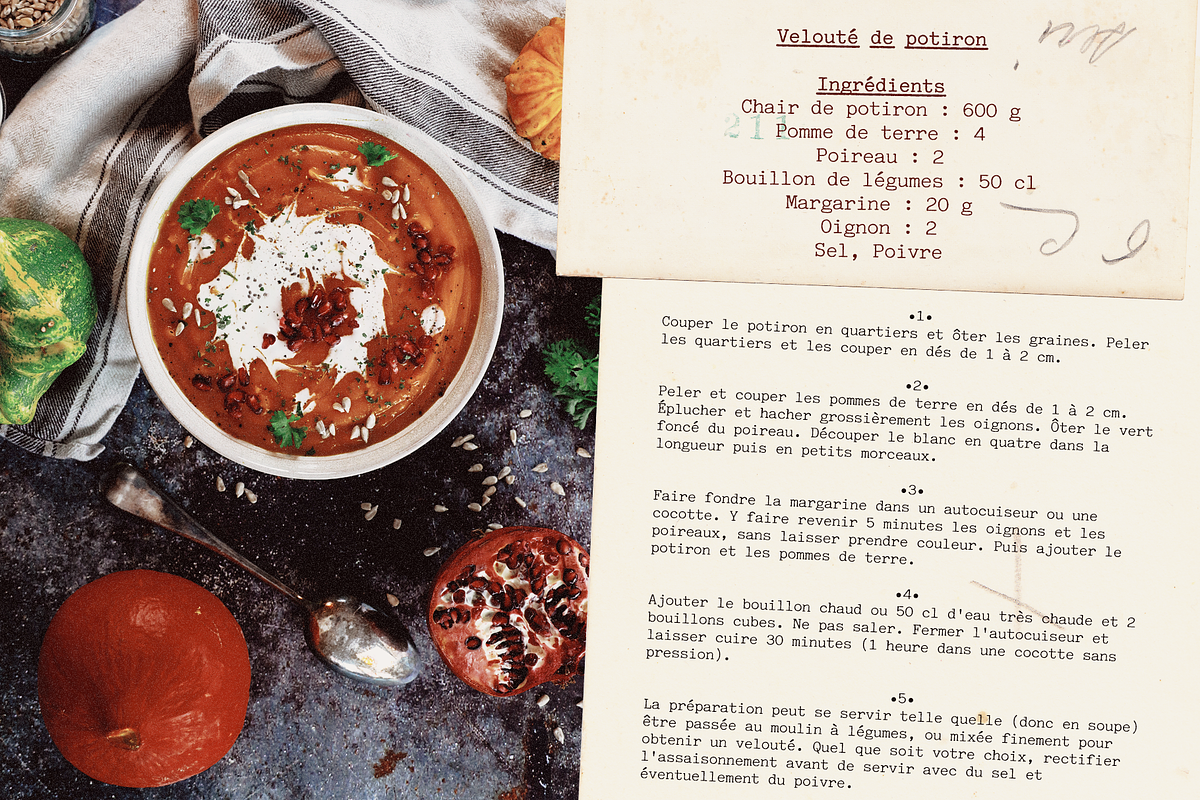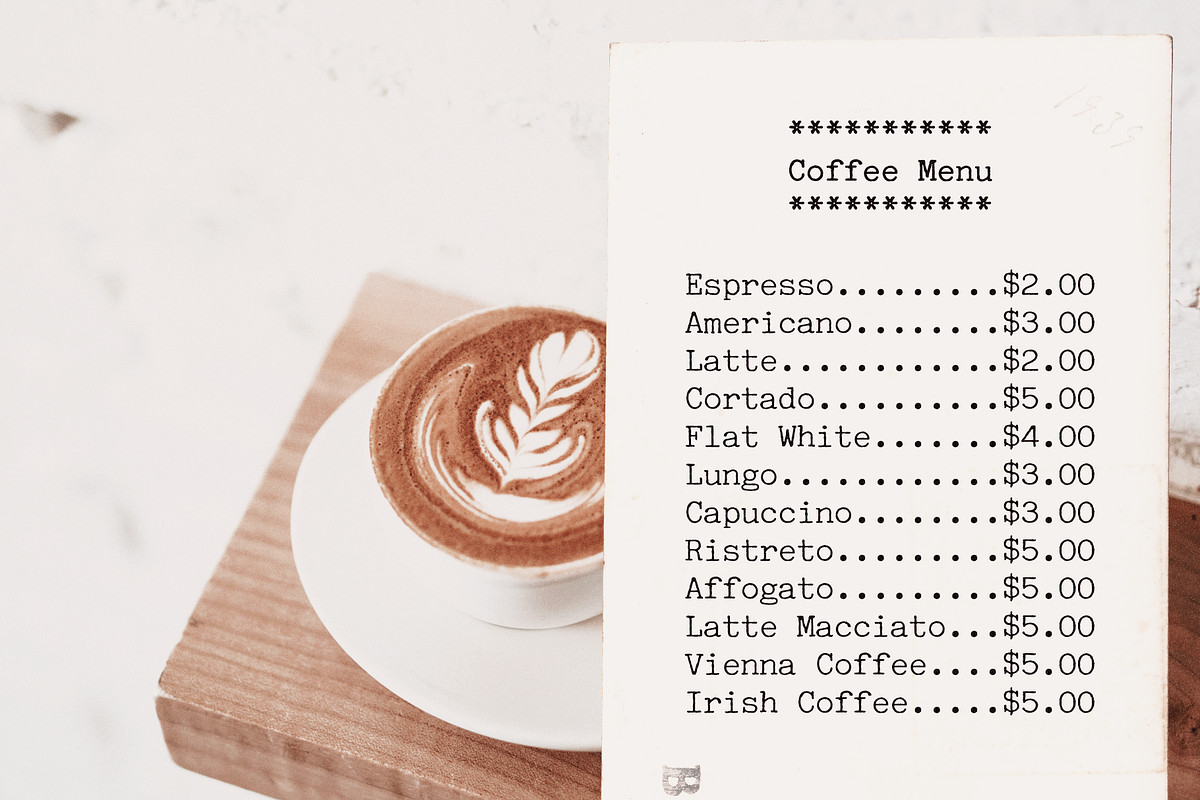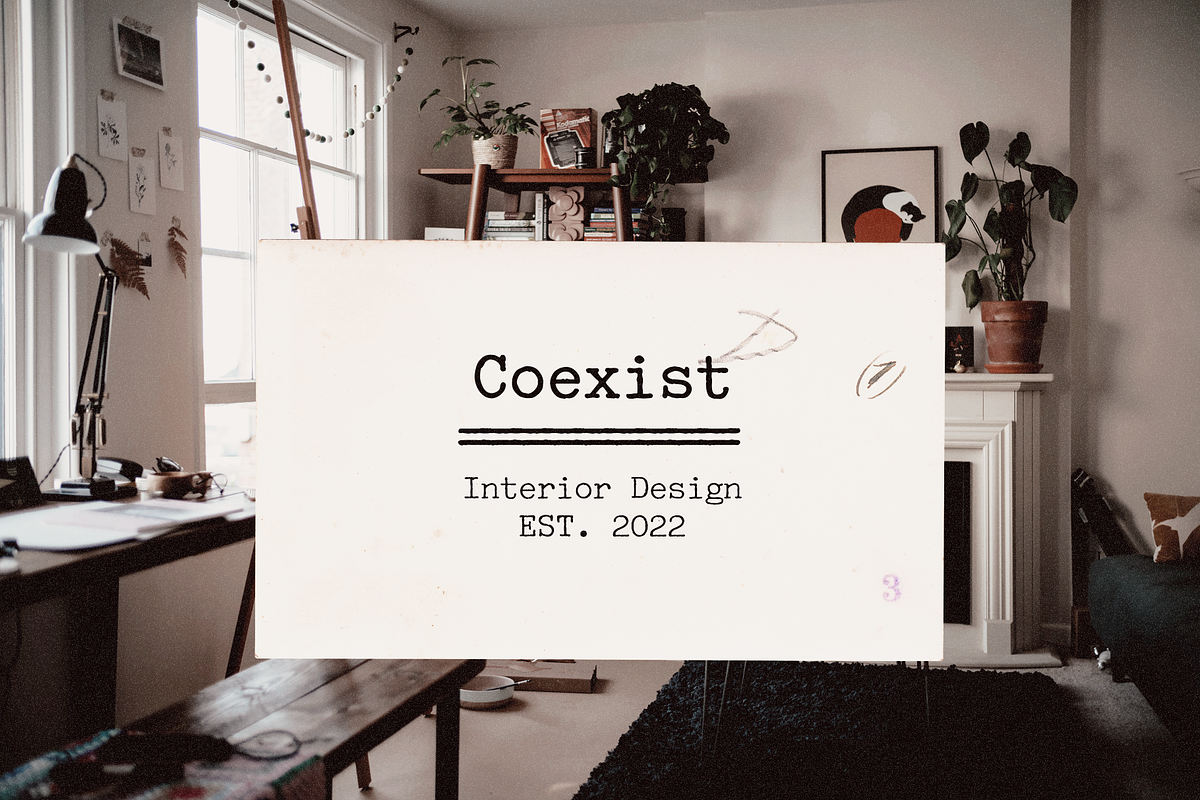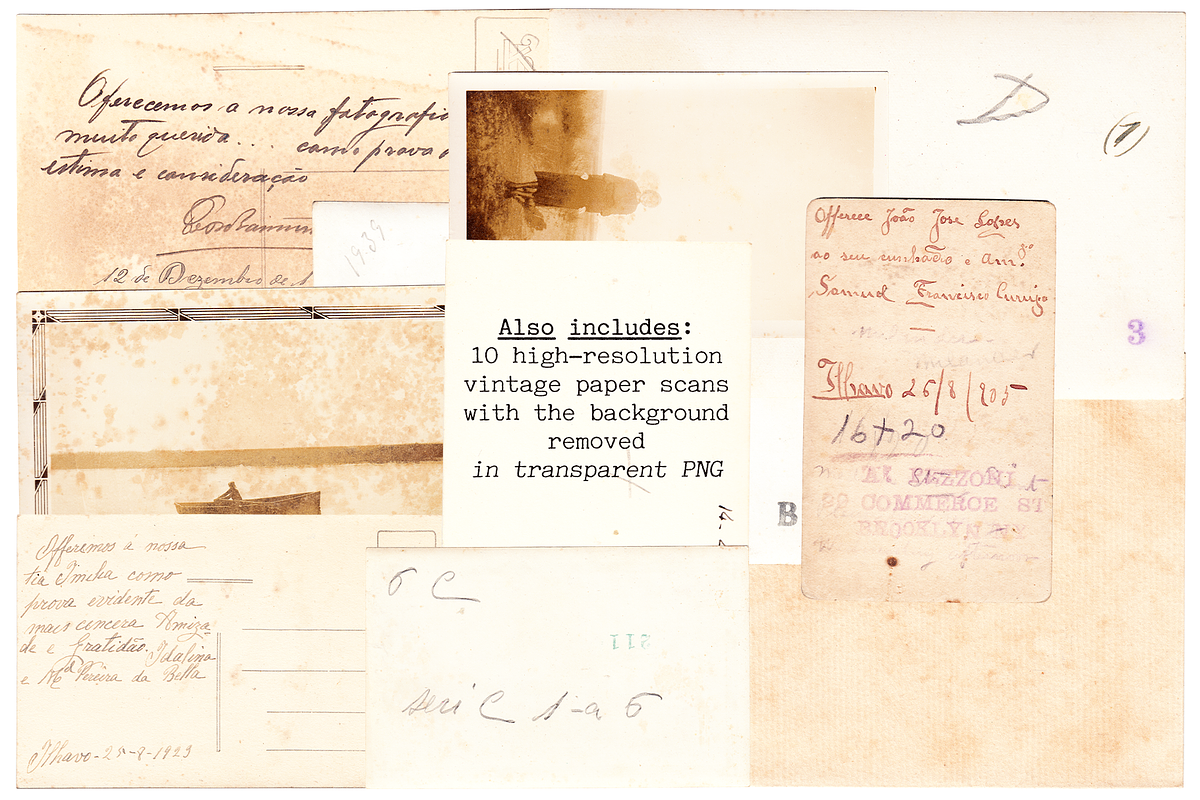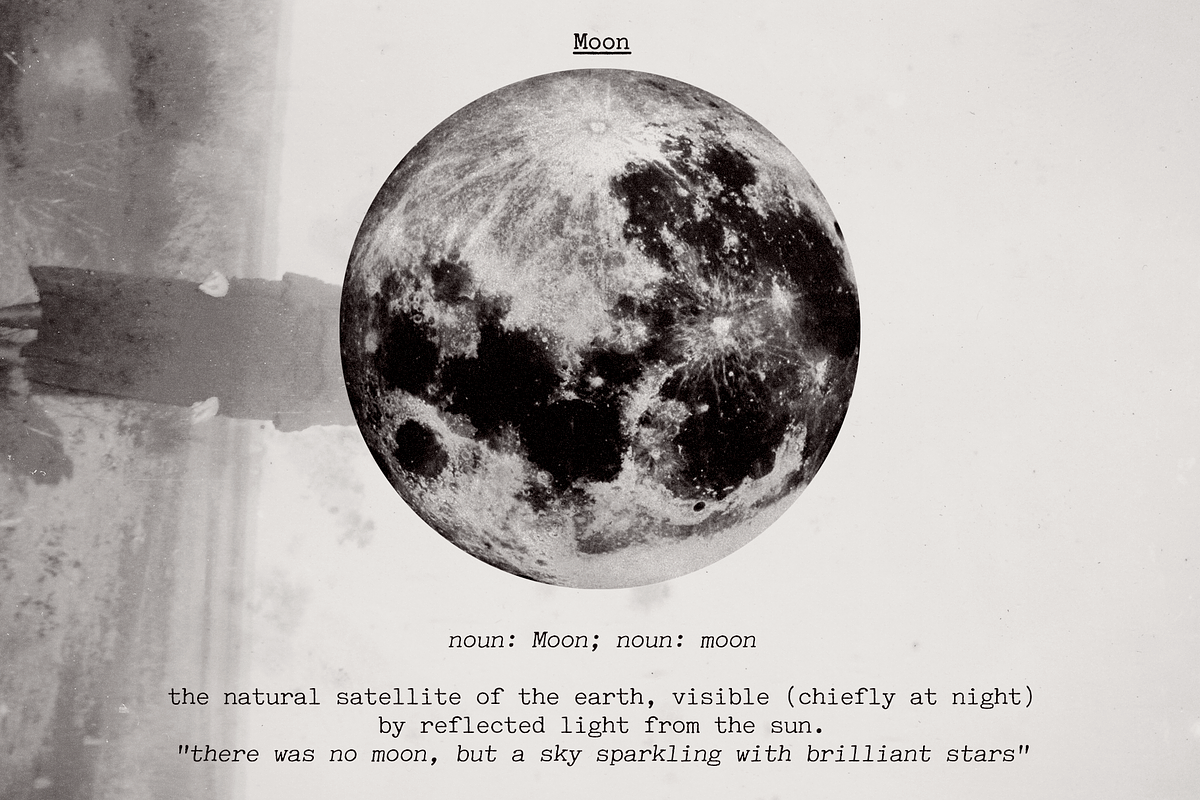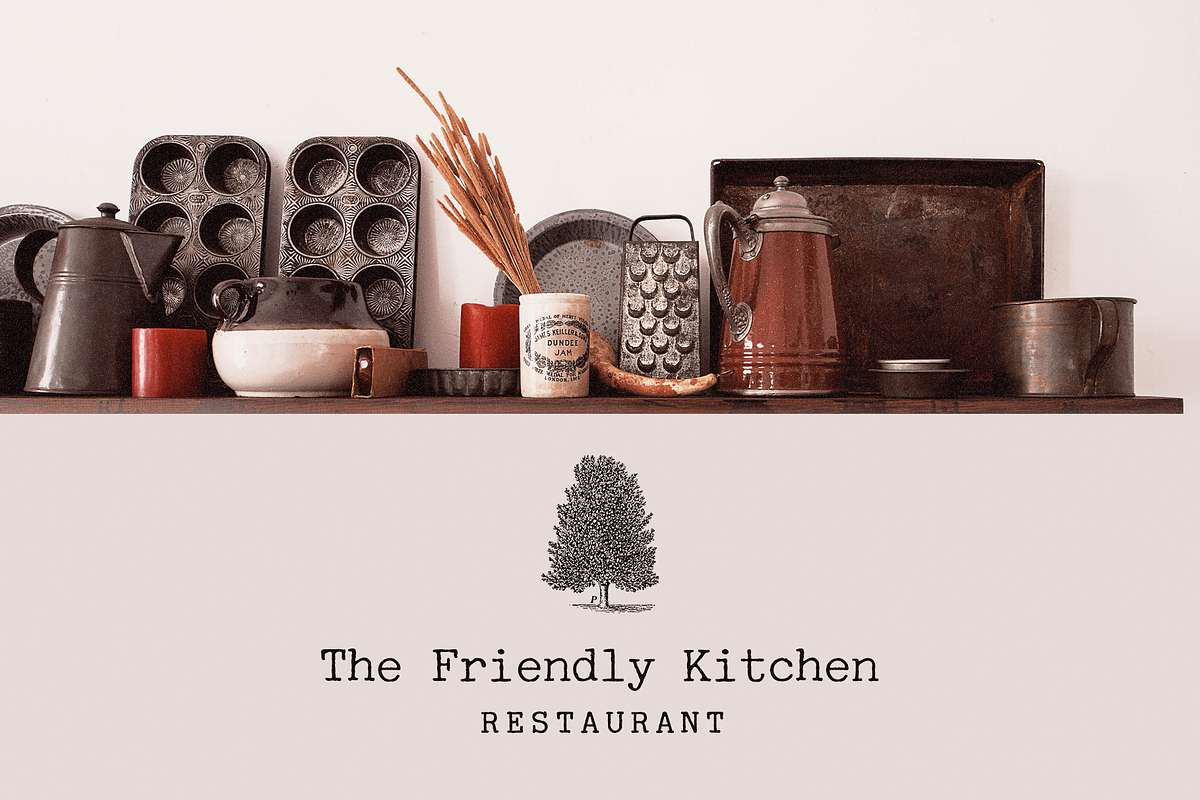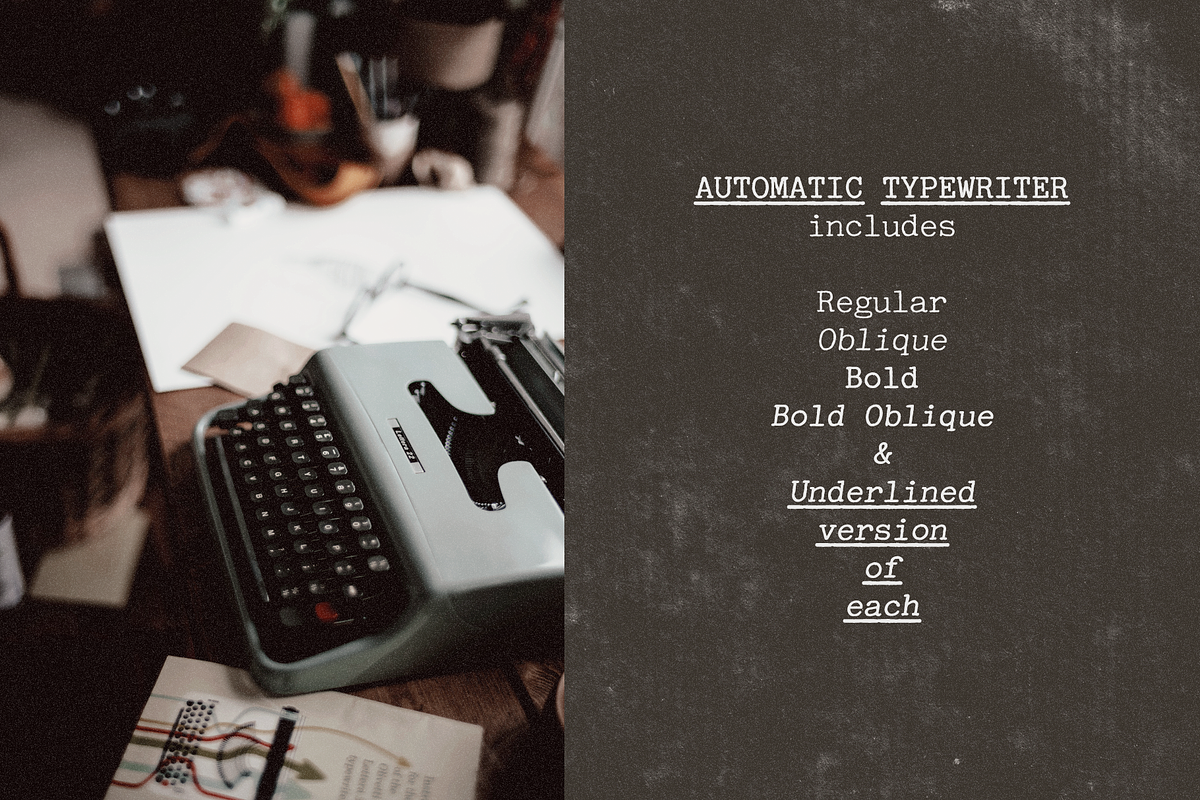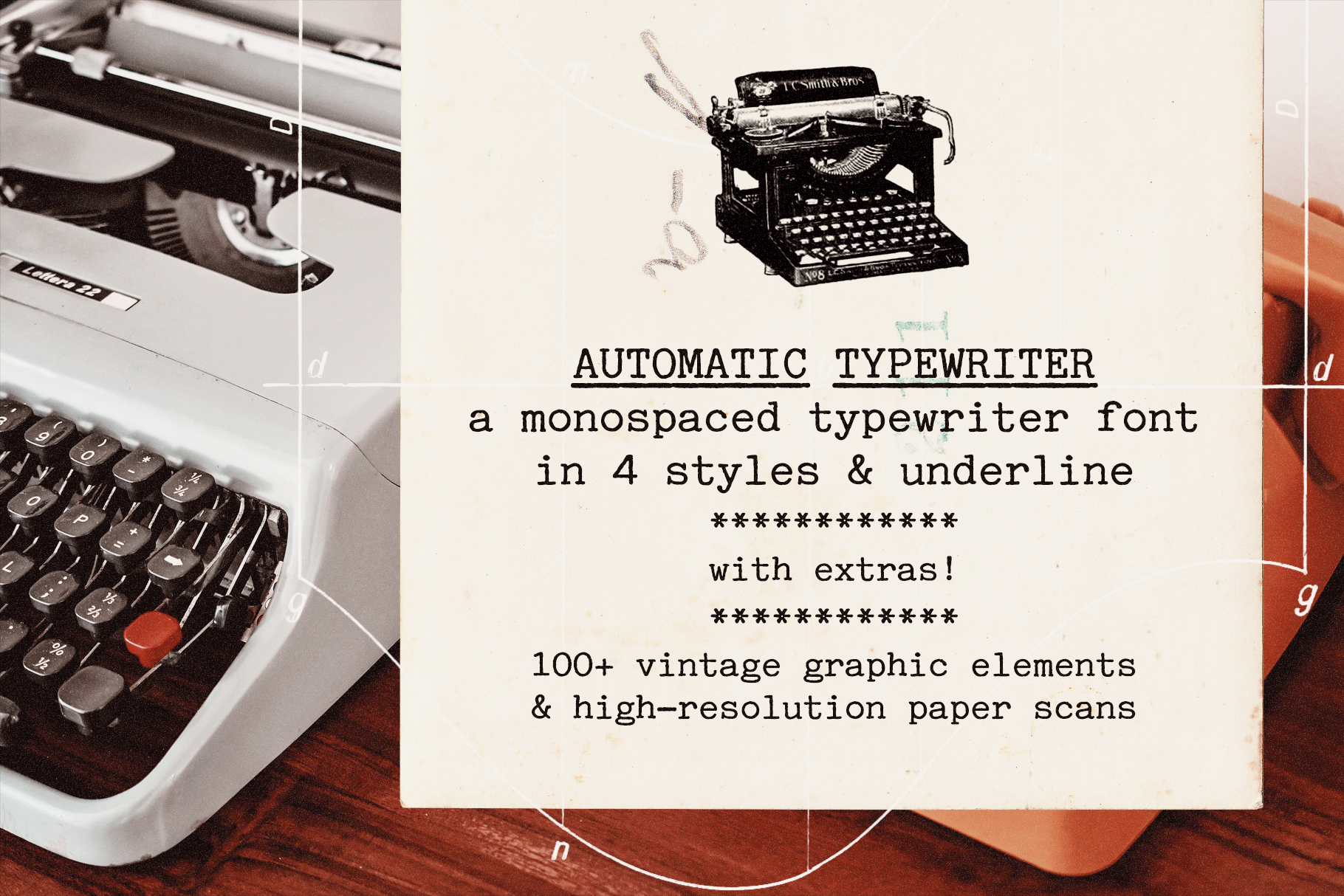
Automatic Typewriter Font and Extras
Automatic Typewriter is a monospaced typewriter font in two styles: Regular and Italic, and two weights: Regular and Bold, plus Underline versions, for a total of 8 fonts. This makes it versatile and ready to use in modern and vintage designs alike. This font is also very legible at a wide range of sizes and looks great in both long or short texts, in digital collages, branding and packaging, social media posts, logotypes, etc.